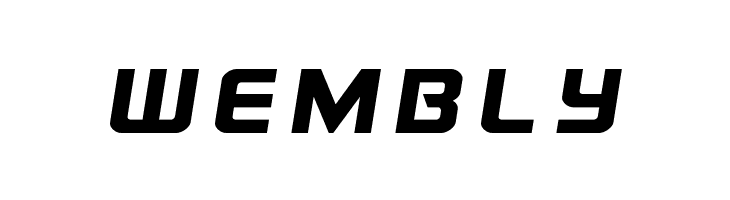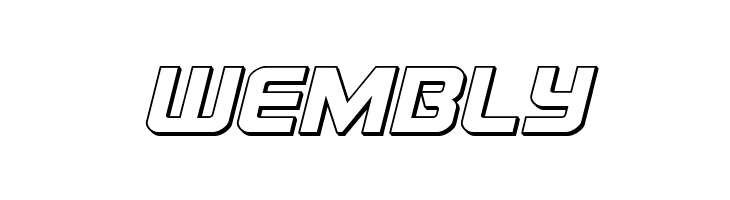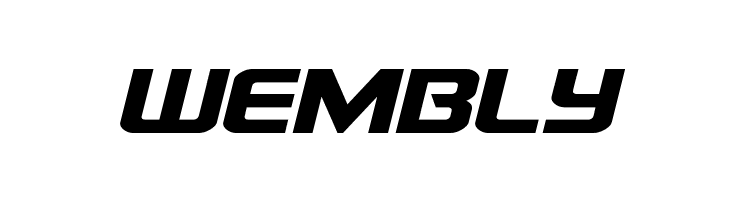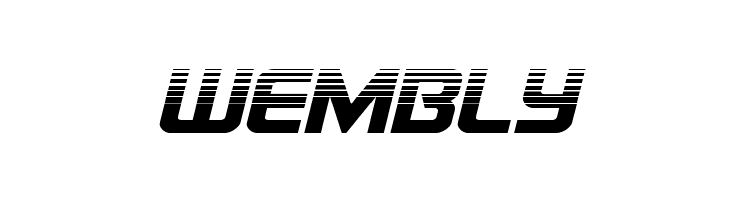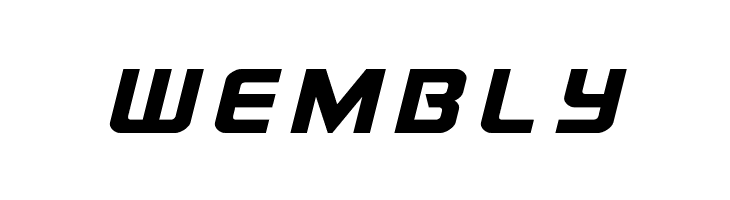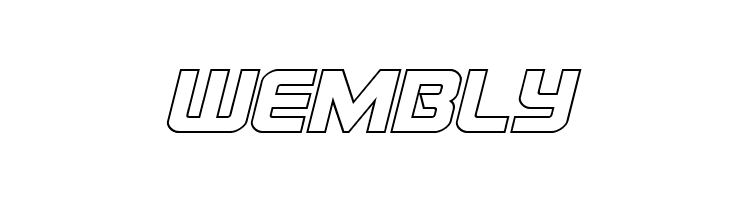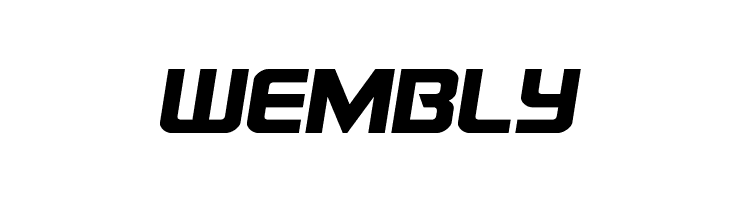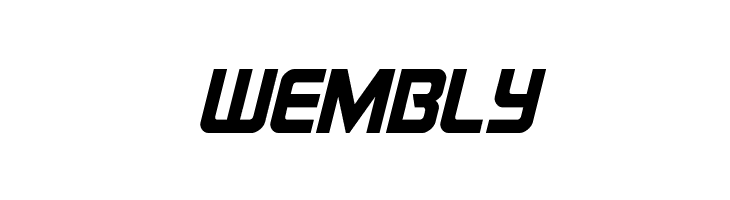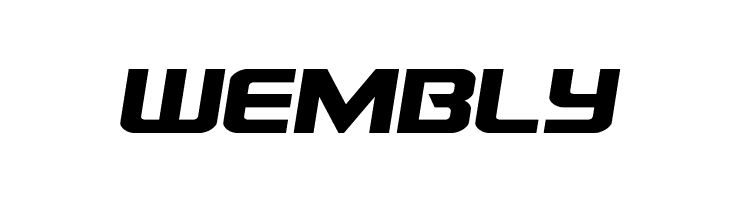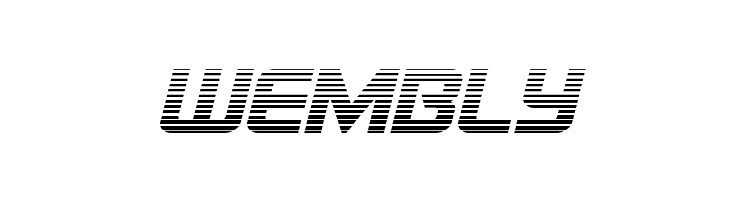
A bold, 3D italic font with a modern, dynamic style.
A bold, italic font with sharp angles and a modern, dynamic style.
A bold, italic font with a modern and dynamic style.
A bold, 3D italic font with a futuristic and dynamic style.
A futuristic, condensed italic font with sharp angles and a dynamic style.
A bold, expanded italic font with a futuristic and dynamic design.
A bold, expanded, semi-italic font with a futuristic and dynamic design.
A futuristic italic font with a dynamic, linear gradient design.
A futuristic italic font with gradient lines and a dynamic, high-tech style.
A bold, italicized font with a futuristic halftone effect.
A bold, futuristic italic font with angular, geometric characters.
A futuristic, italicized outline font with a geometric design.
A futuristic, outlined, semi-italic font with a geometric design.
A bold, semi-italic font with a futuristic and dynamic design.
A bold, italic, and futuristic font with a dynamic, angular design.
A futuristic italic font with bold, angular letterforms and a dynamic style.
A futuristic, semi-italic font with bold, angular characters and a geometric style.
A futuristic, two-tone italic font with a dynamic and speedy appearance.
A futuristic, italicized font with sharp angles and a sleek design.
A futuristic, angular italic font with a bold and dynamic style.
A bold, 3D italic font with a futuristic and dynamic design.
A bold, futuristic italic font with geometric shapes and outlined characters.
A bold, condensed italic font with a futuristic and dynamic style.
A bold, italic, and futuristic font with angular, expanded characters.
A bold, italicized font with a futuristic and dynamic design.
A futuristic, 3D, italic font with a bold, geometric design.
Futuristic, bold, italicized font with a dynamic, three-dimensional style.
A bold, futuristic italic font with angular, geometric letterforms.
A bold, futuristic font with angular, geometric shapes.